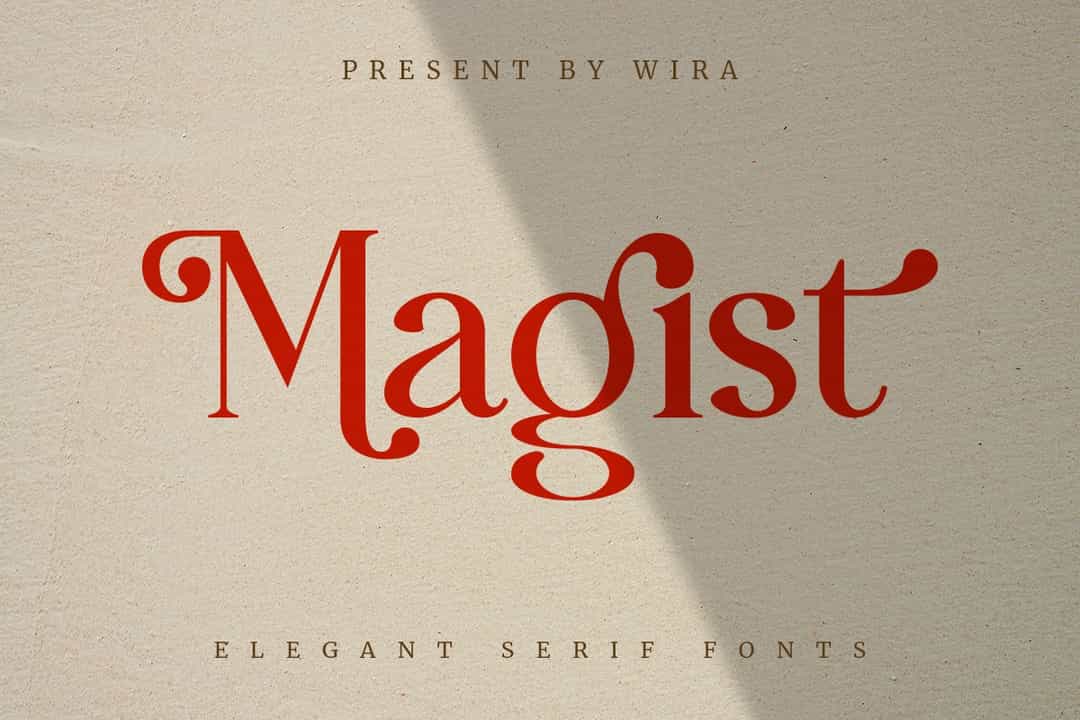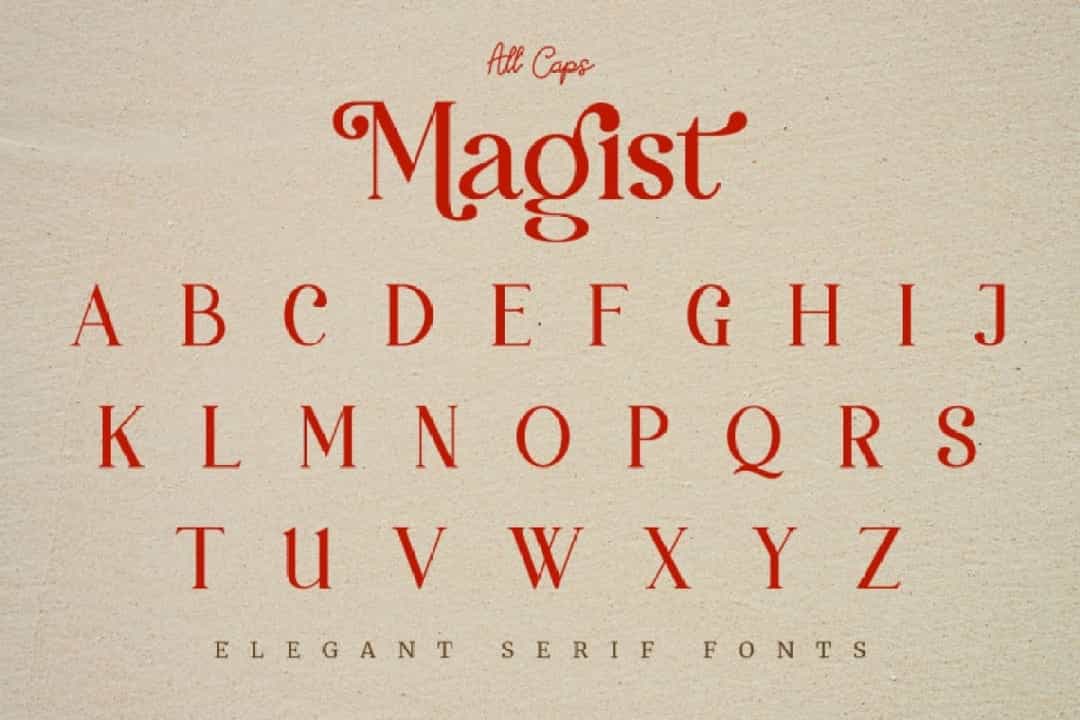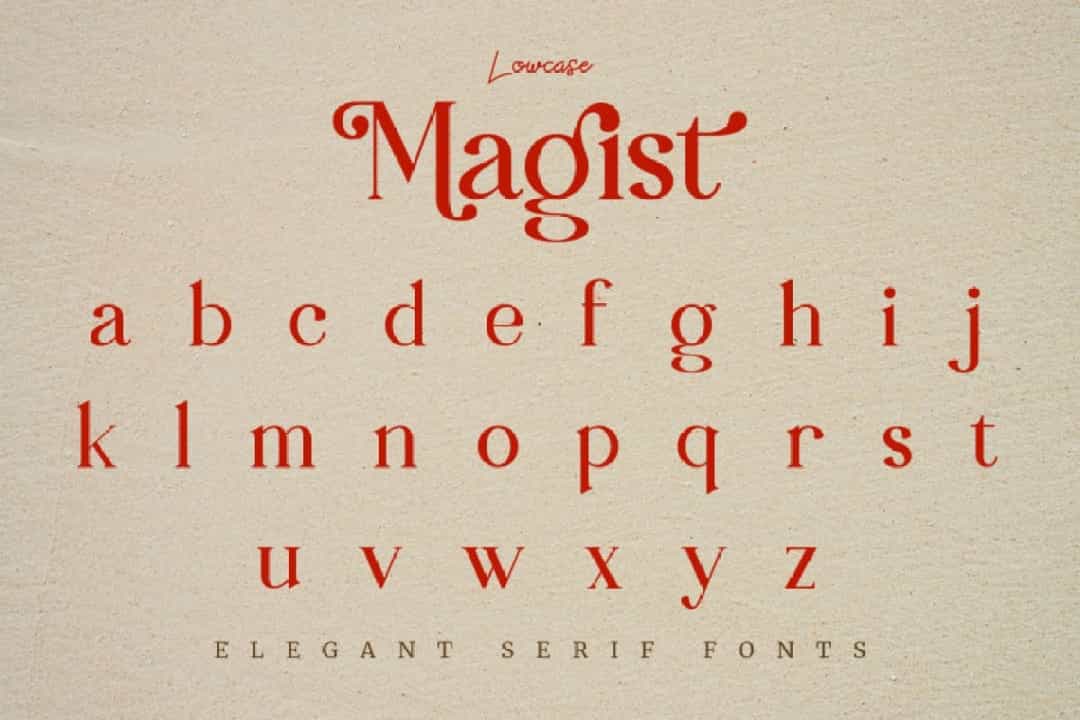
Magist is a complex title font designed by Wirastudio and includes various ligatures that make stunning designs for quotes, post blog, branding projects, magazine images, wedding invitations and other uses.